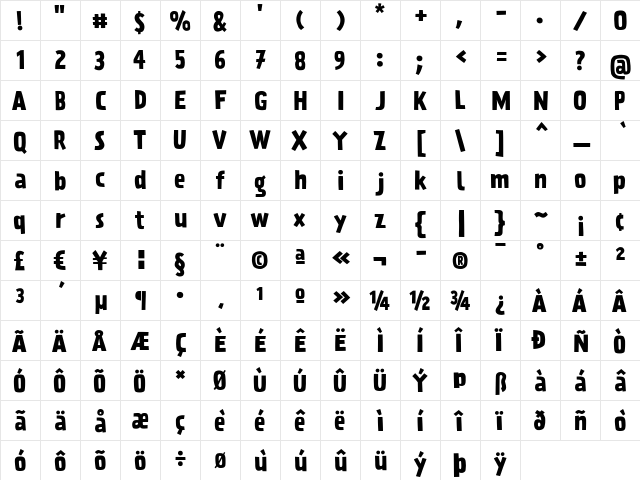
PraterSansTwo-Bold Bold
| Foundry | Steffen Sauerteig, Henning Wagenbreth, published by Fontshop International for the FontFont library |
Design Context for PraterSansTwo-Bold Typeface
PraterSansTwo-Bold offers clean, dependable letterforms without strong stylistic allegiance, making it a practical choice for designers who need flexibility. Its bold stroke weight gives it real presence on the page.